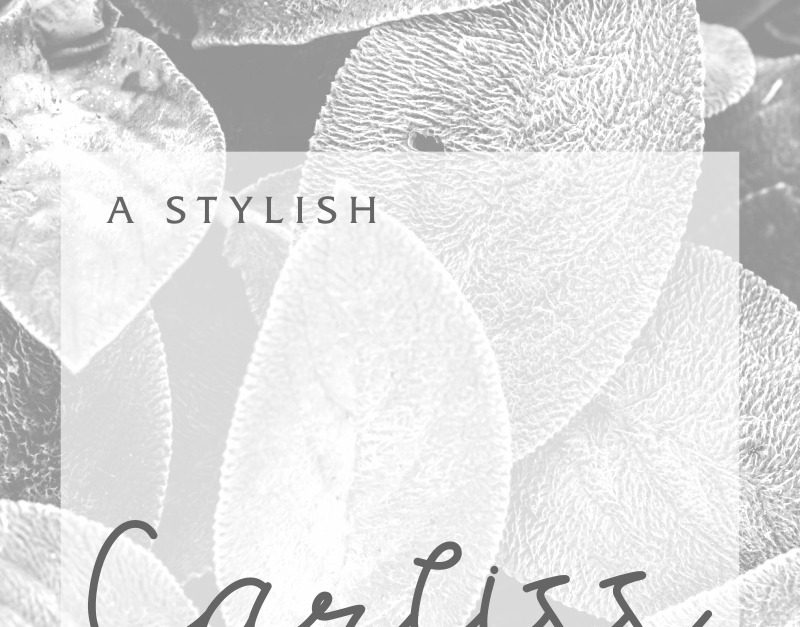
Carllis Font
Please meet our newest font : Carllis Script!
This is a new script handwritten style font. It has a beautiful and stylish glyphs. Will be perfect for any designs projects.
Carllis Script has two styles : reguler and bold. It also works with multi languages.
Carllis Script has a stylish elegant glyph that will be perfect for flyer, brochure, branding, logotype, wedding, advertising, promotion, photography or any other projects. It is so elegant, classic and beautiful.